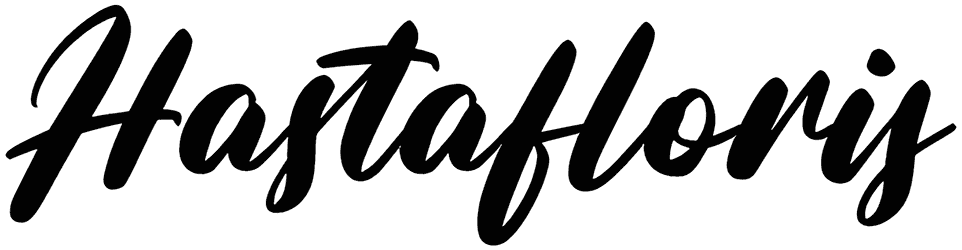
Hastafloris Font
Hastafloris adds a spark of luxury to any design and is for those who need a fresh look in their designs. This handwritten font is carefully designed to create stunning and elegant writing with a light feel that is very legible to the eyes.
So if you’re interested in subtle and complex characters and don’t mind the lack of numbers, you can create your next project in the field of wedding card design or art exhibition posters with this brush font.